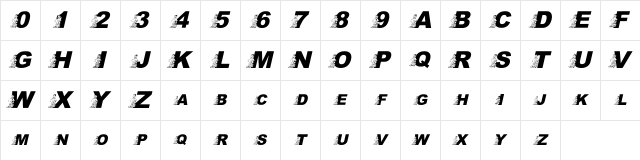
pf_injury_sportsi Regular
Design Context for pf_injury_sportsi Typeface
pf_injury_sportsi has the bold swagger of sports branding: strong, assertive letterforms designed to dominate headlines and jerseys alike.
Built for sports team identities, athletic apparel, event posters, and high-energy promotional material.
Font Pairing: Use alongside a condensed or geometric sans for supporting copy — keep the pairing bold, functional, and free of ornament.
Pro Tip: pf_injury_sportsi thrives on contrast — try it large, bold, and tight against a clean background for maximum visual impact.